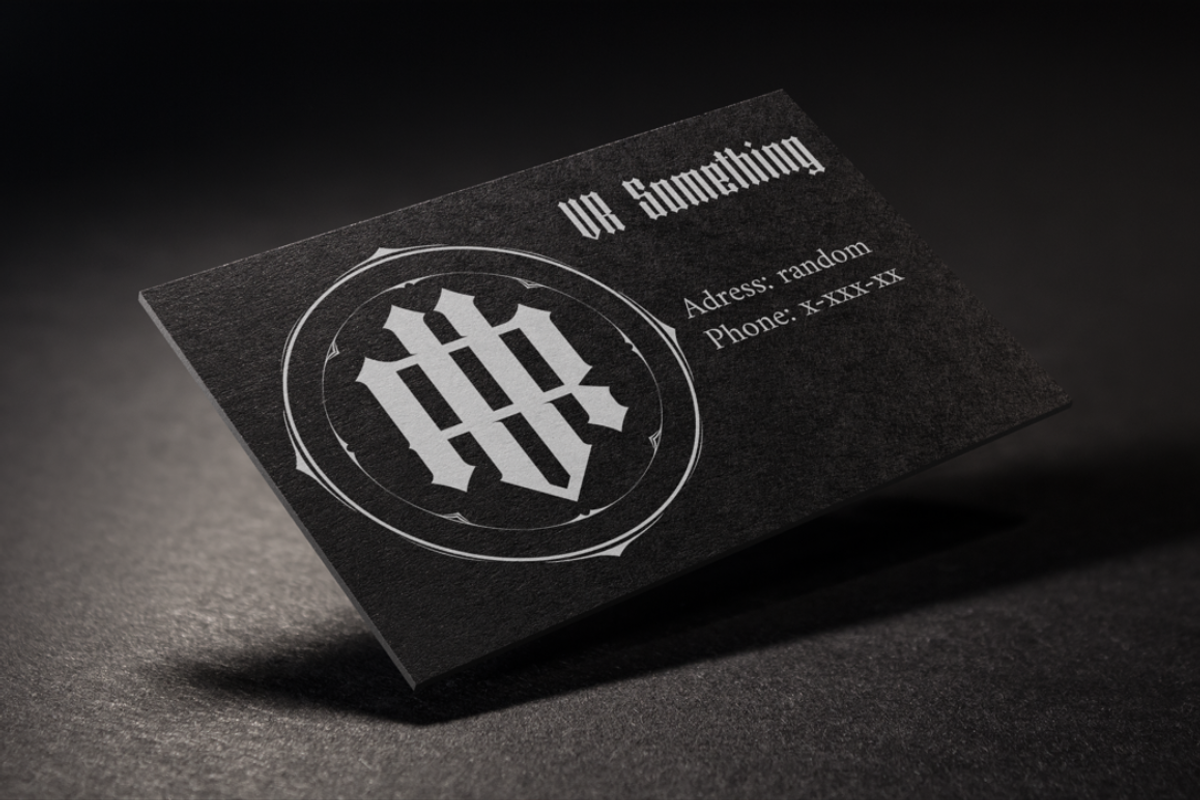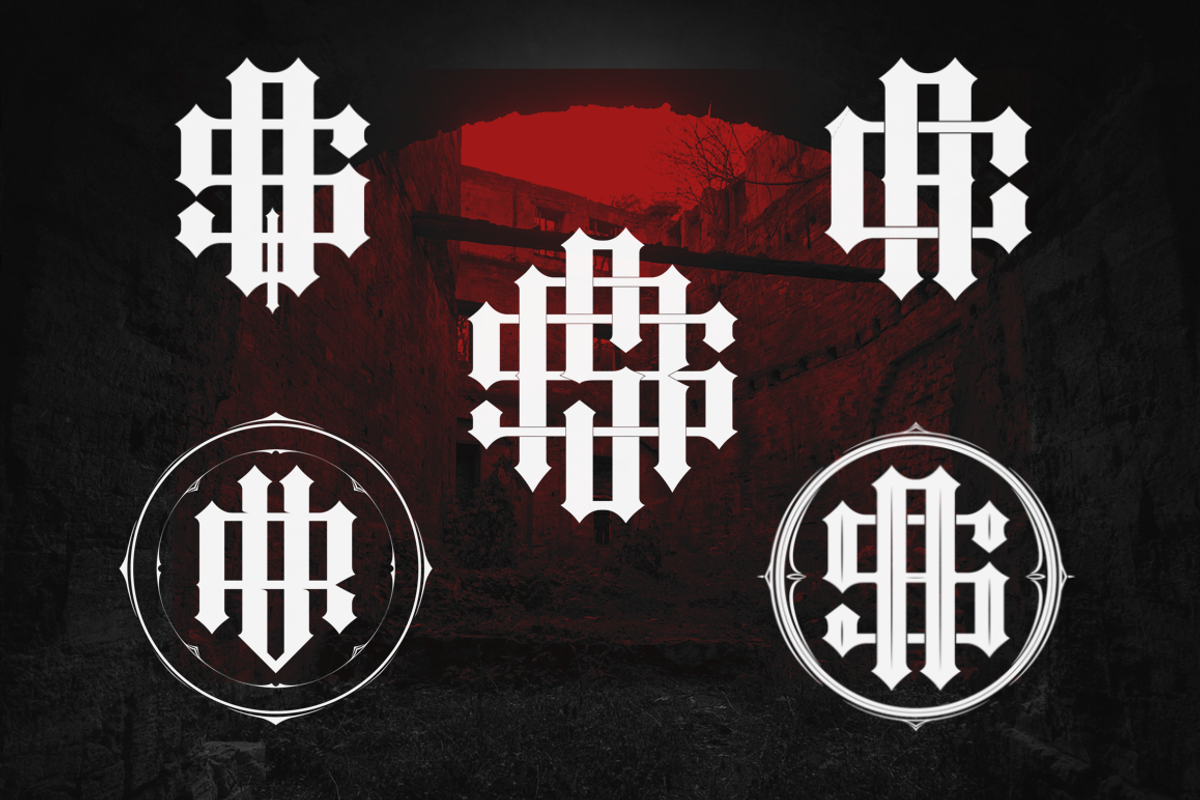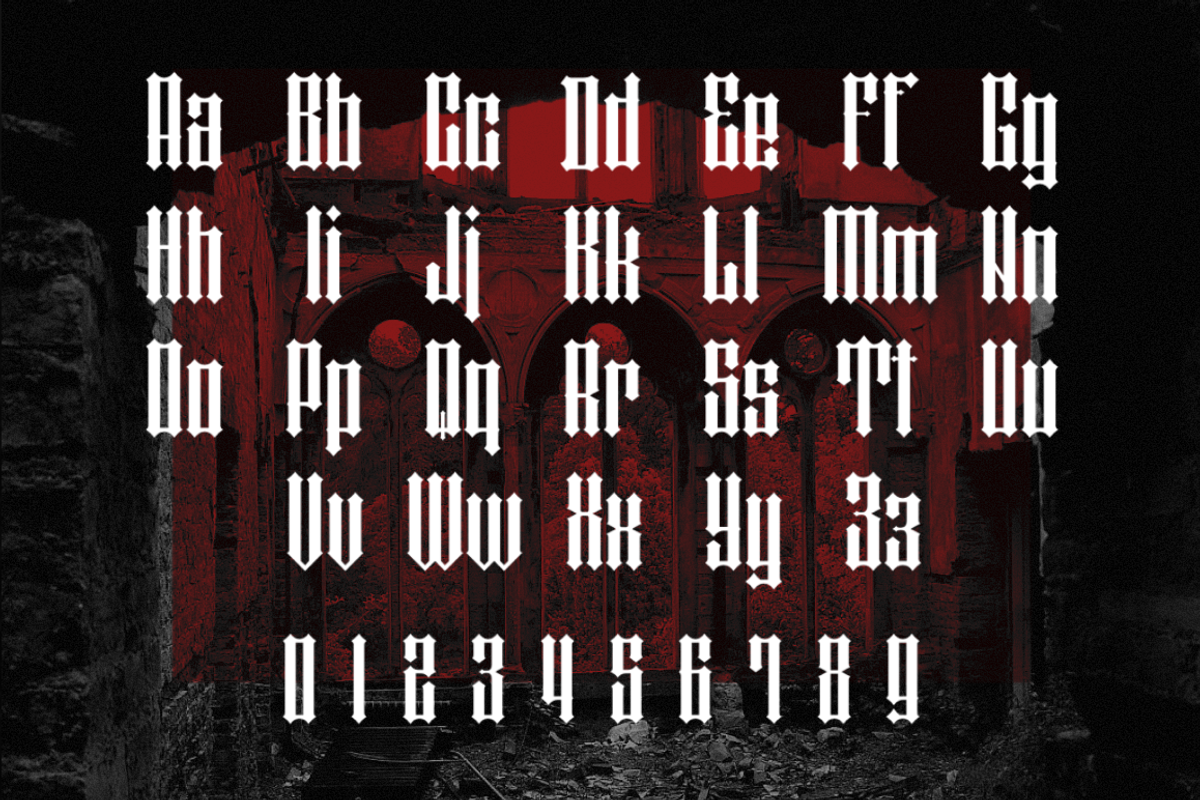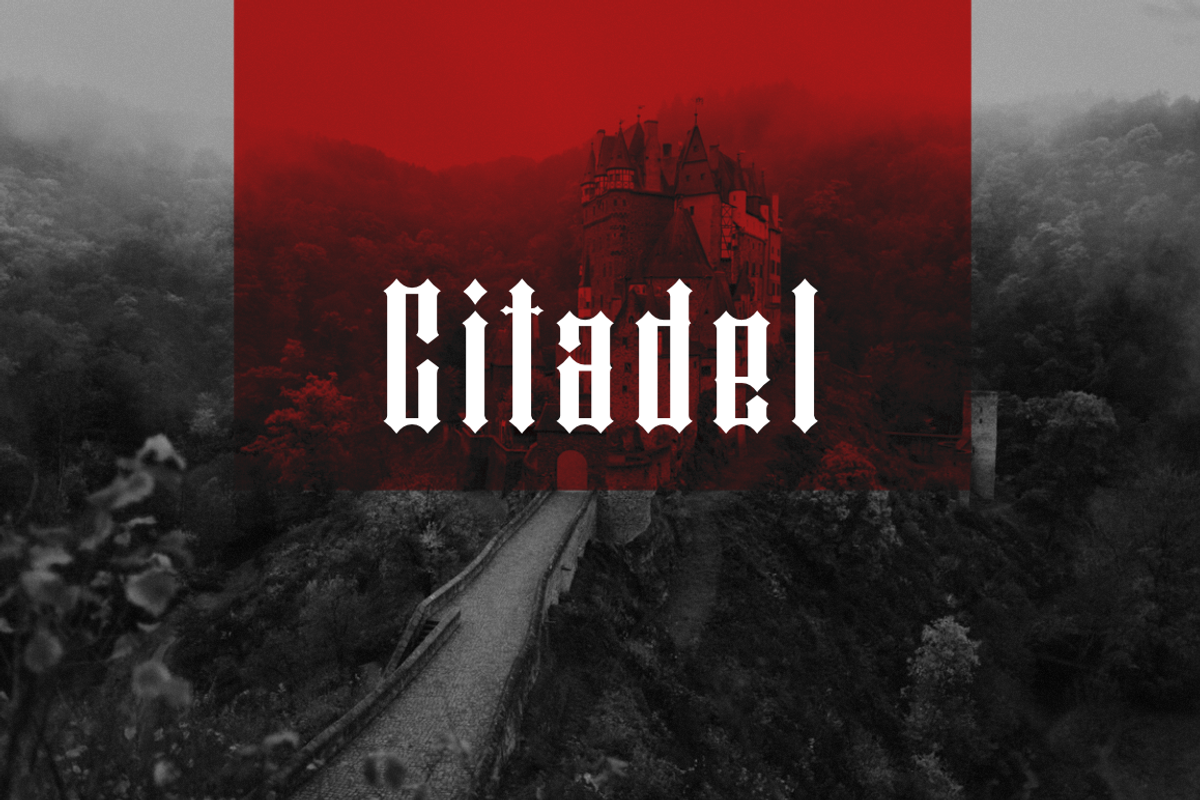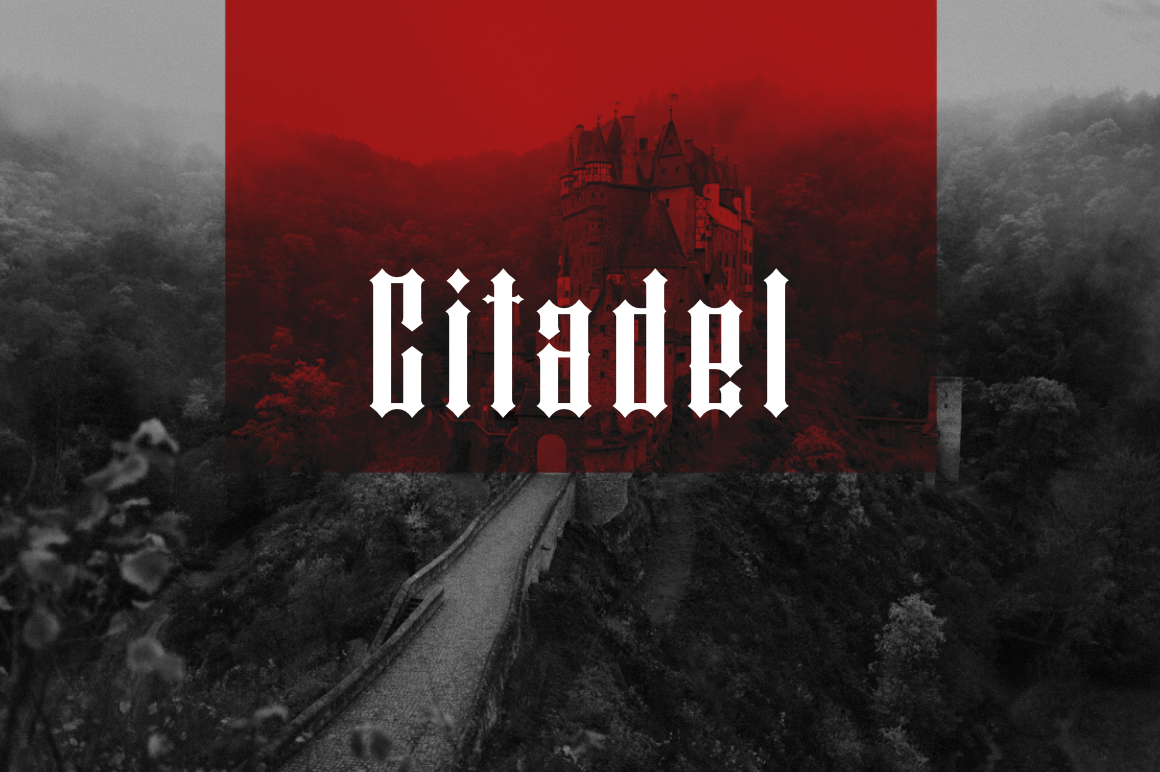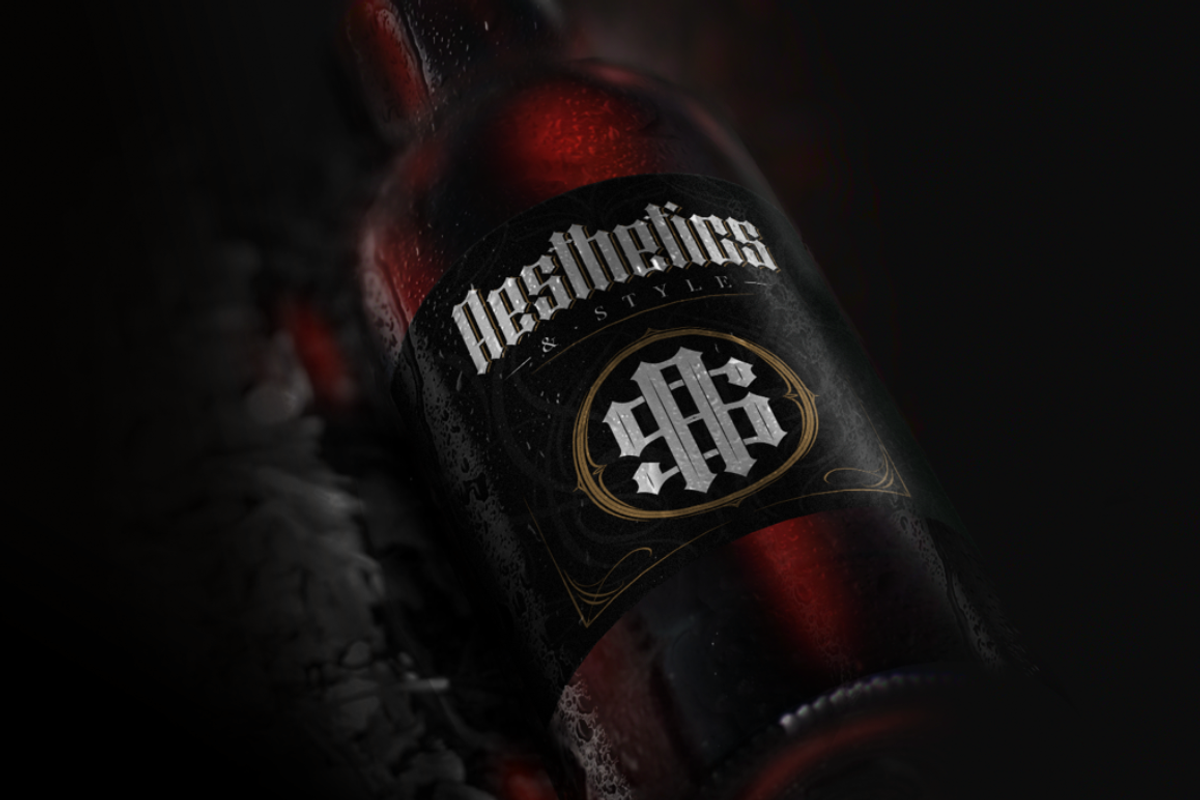
Citadel font
The Citadel font was initially created as a tool for easy monogramming. Every letter is made in a way that allows you to stretch and flatten it in different directions. Citadel includes basic Latin characters (Capital and lowercase), numbers and extra symbols (+ - = .). I'm not going to tell you how gorgeous this font is so that you can see that on your own.